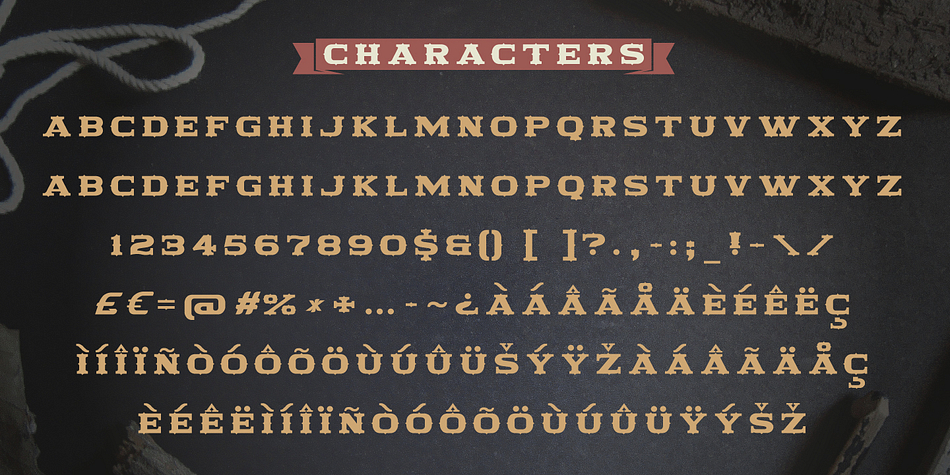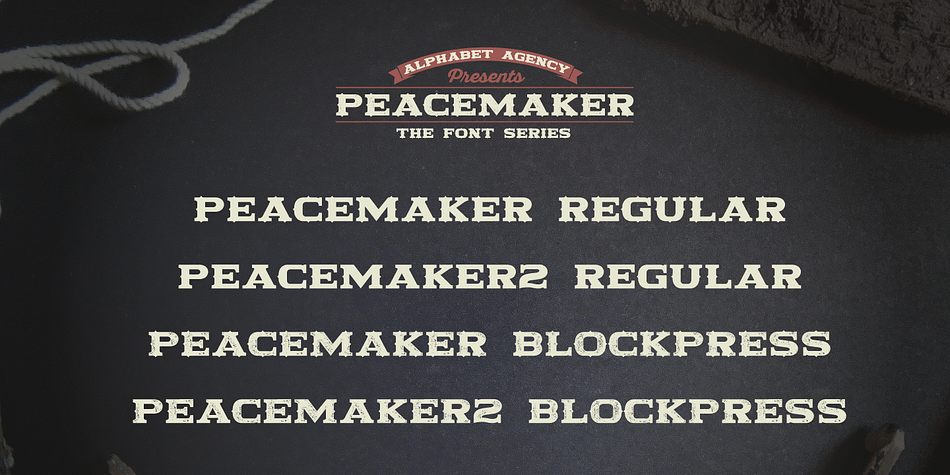
Peacemaker
Peacemaker is a western and wood type font family. This typeface has four styles and was published by Jonathan Swinn.
Peacemaker font series is inspired by old western signage. The strong bold slab letters are designed to draw attention in a vintage style. The fonts are ideal for use in western / country, outdoor and rural themes, especially rustic vintage signage and posters.
The series contains four fonts - Peacemaker, Peacemaker 2, Peacemaker Block Press and Peacemaker 2 Block Press. The fonts contain all capital letter with Latin extras, numbers and punctuation characters.